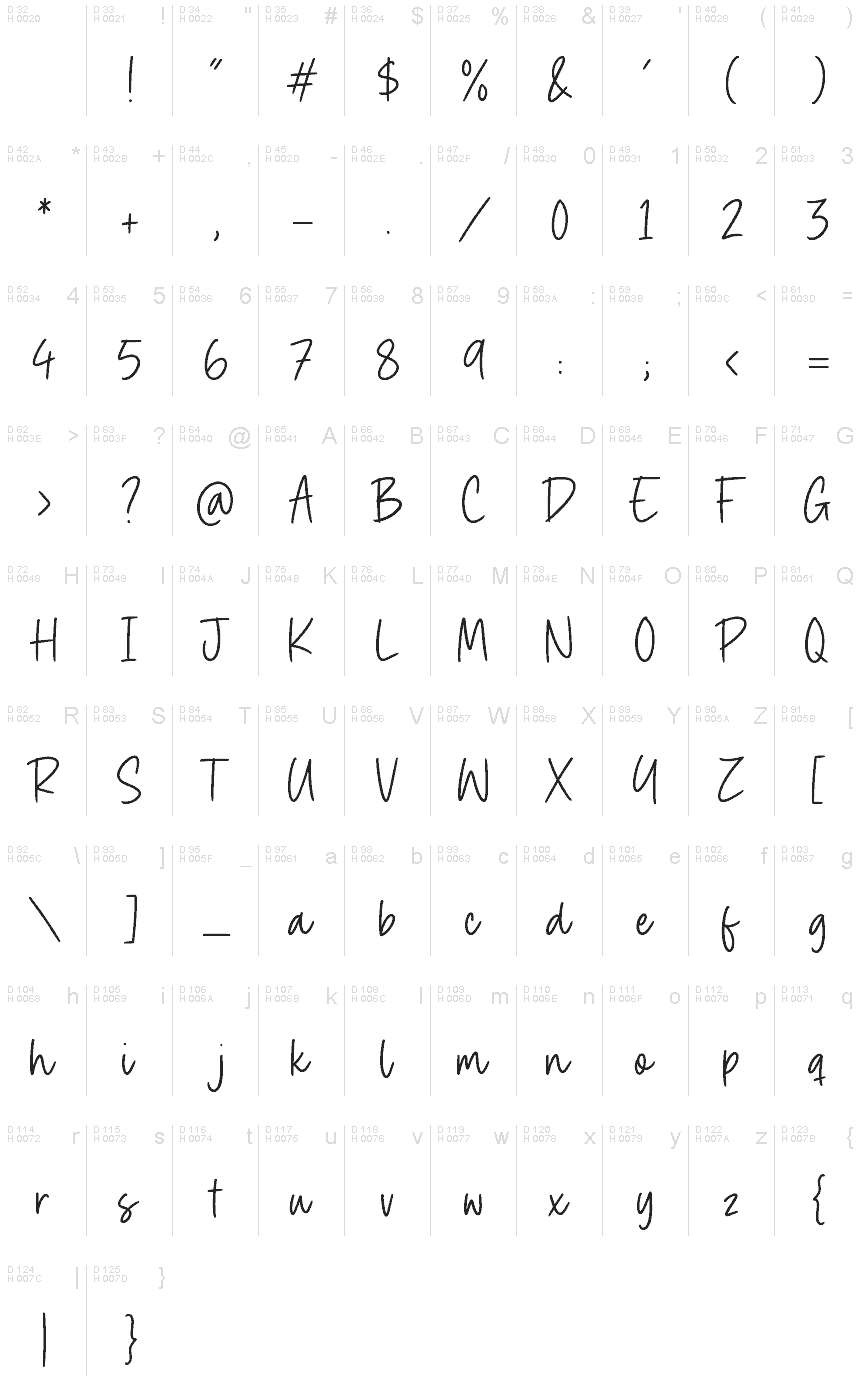
Golden Monstera
Golden Monstera font by Timur Type is an elegant handwritten font that exudes casual sophistication with a natural flow and artistic flair. Its modern appeal combines a slightly condensed structure and smooth lines for a luxuriously sophisticated look. It embodies the style of classic handwriting, creating crisp and delicate characters while always coming off as both approachable and assertive.